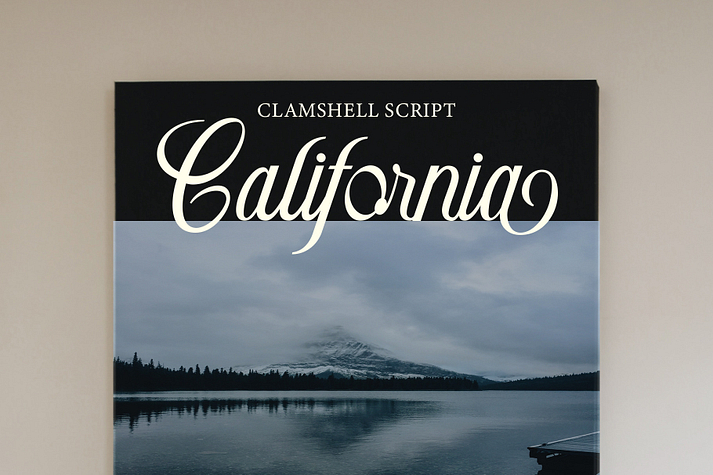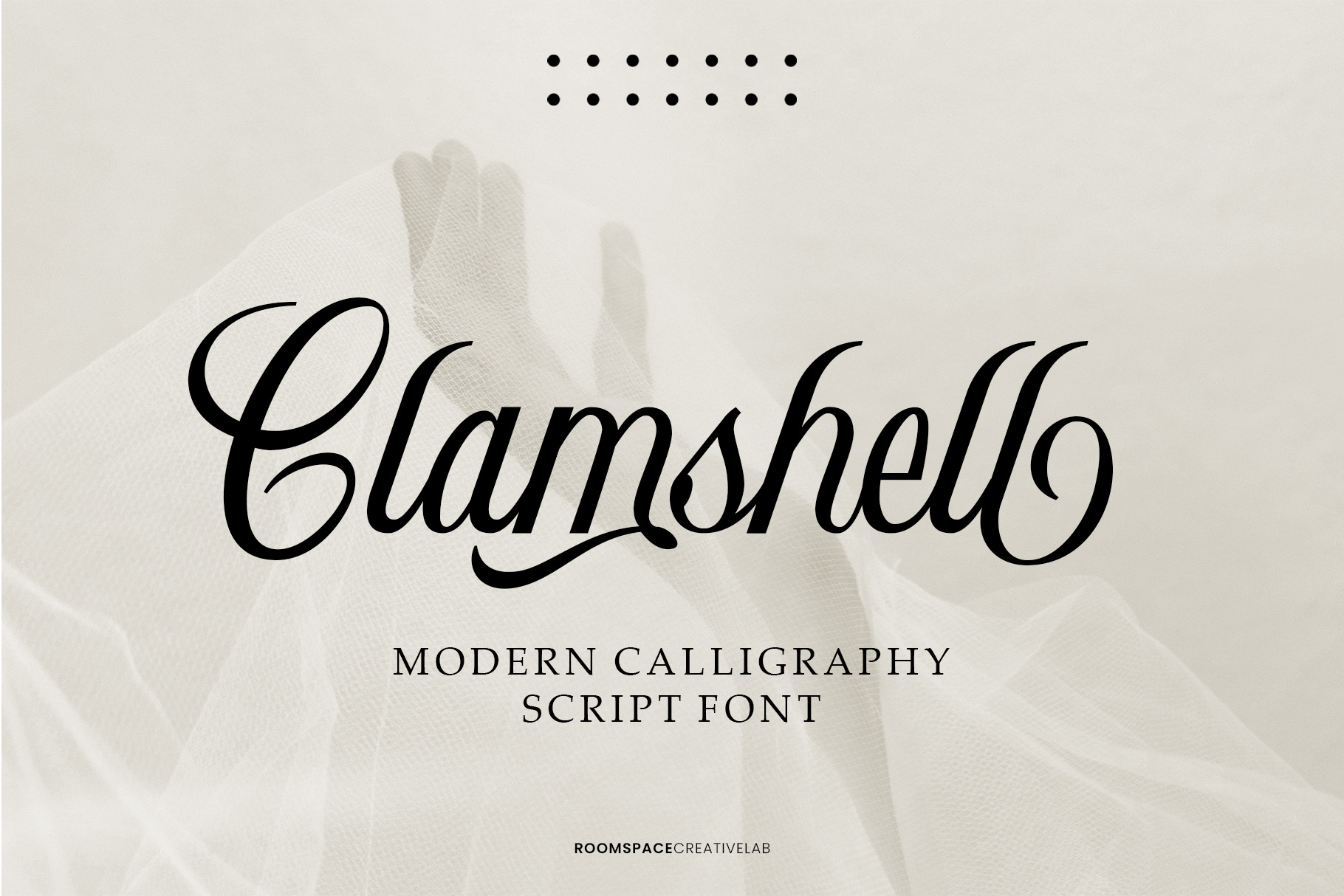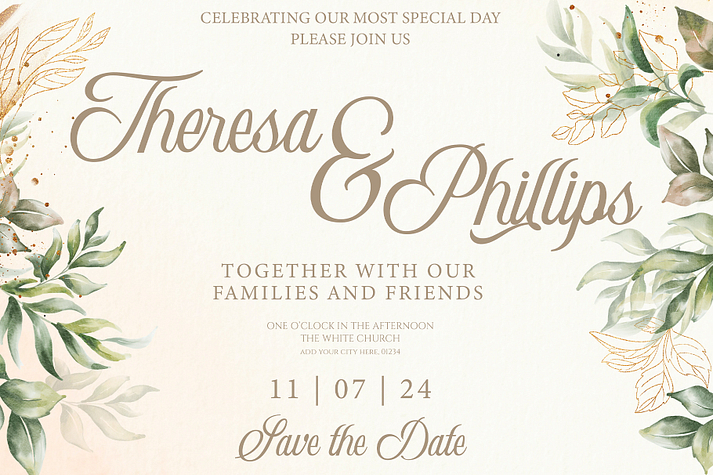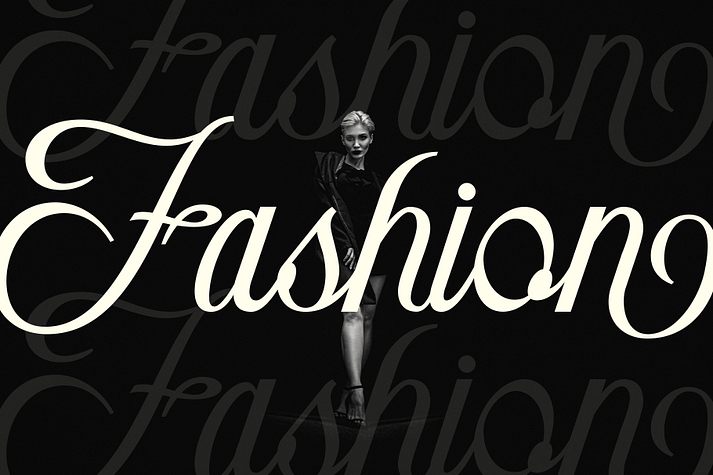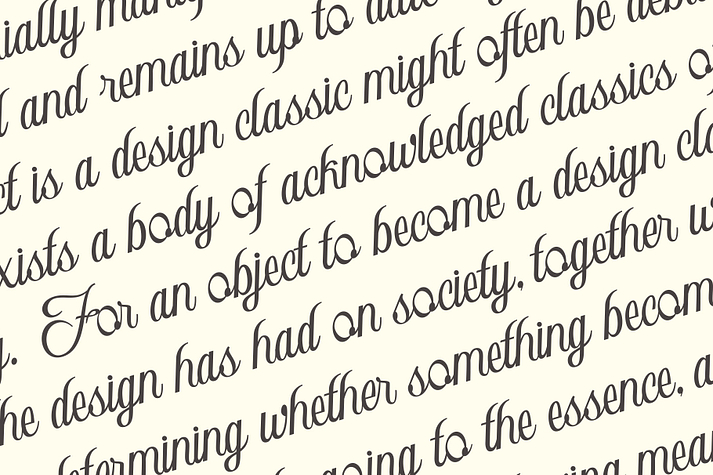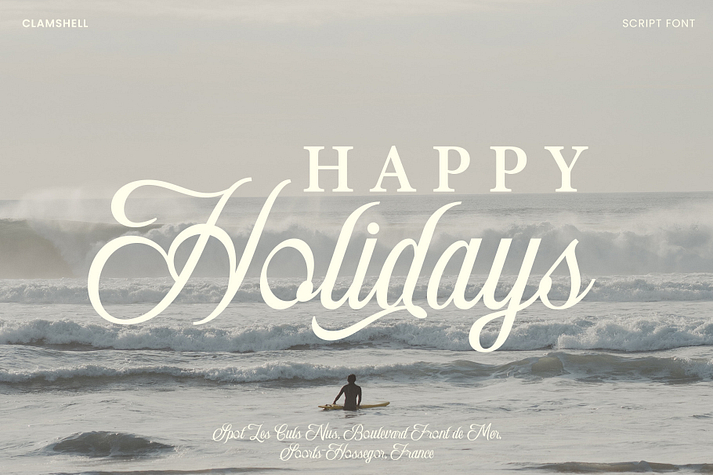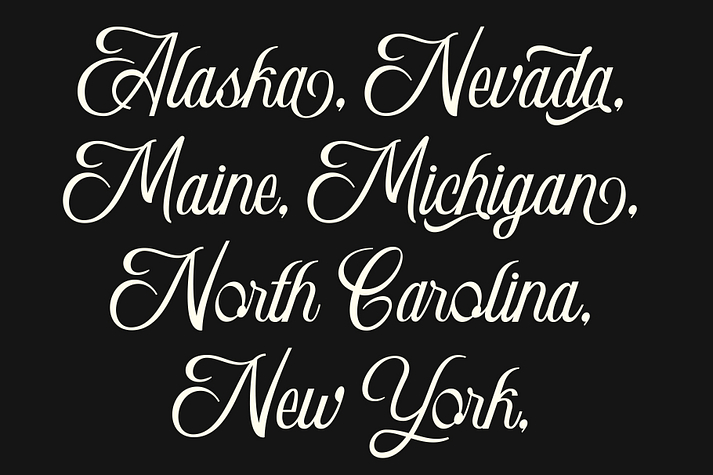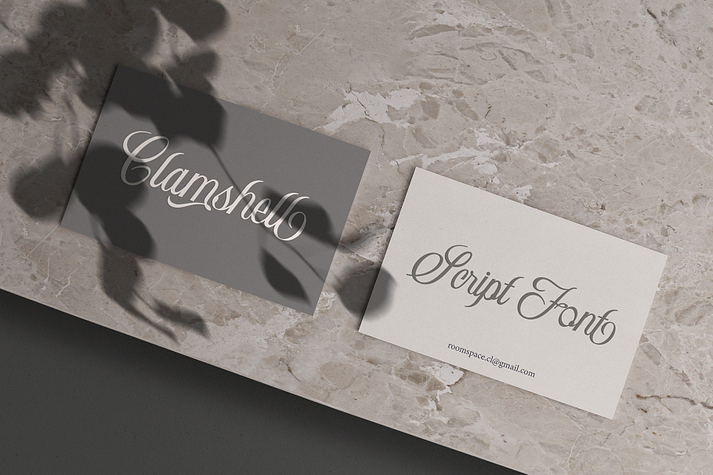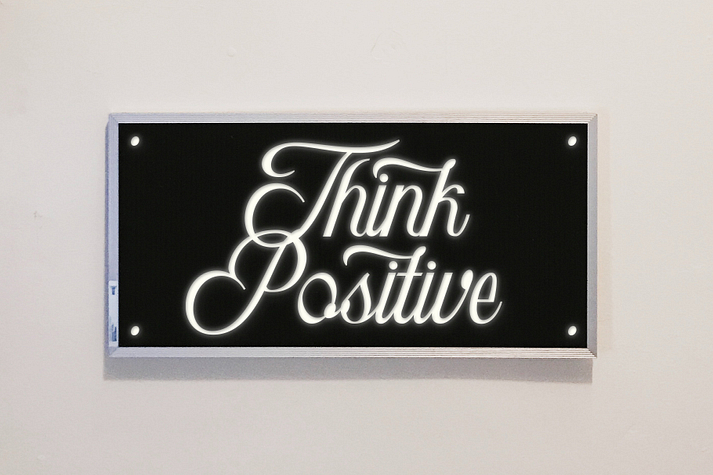
Clamshell
Clamshell is a font family published by roomspace.
Clamshell Modern Caligraphy Script font is a harmonious blend of elegance and contemporary flair, seamlessly adaptable to modern and classic design landscapes. It effortlessly radiates timeless elegance and is tailored to meet the needs of professionals seeking designs that are both sophisticated and versatile.
Easy to use yet rich in detail, this font is the ideal choice for designers who value both beauty and functionality in their work. Explore this font collection now and infuse your designs with the captivating essence of calligraphy.